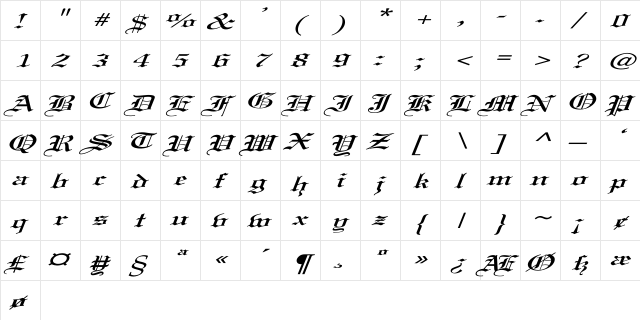
Old English Ex Italic Italic
Design Context for Old English Ex Italic Typeface
Old English Ex Italic takes a measured approach to typography — its balanced proportions and neutral character make it a reliable workhorse for both digital and print work. The dynamic lean of this cut emphasises speed and emphasis in any layout.
Pro Tip: Try Old English Ex Italic for annotation and caption copy alongside an upright companion — the contrast in angle creates a dynamic but ordered typographic system.